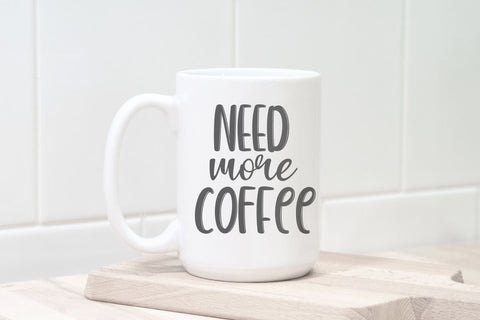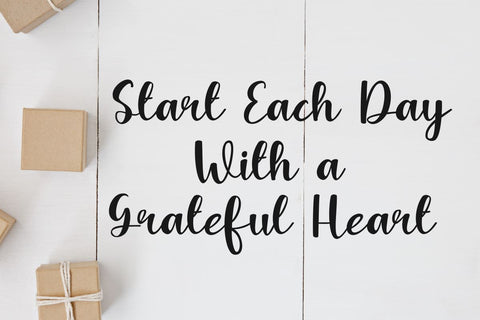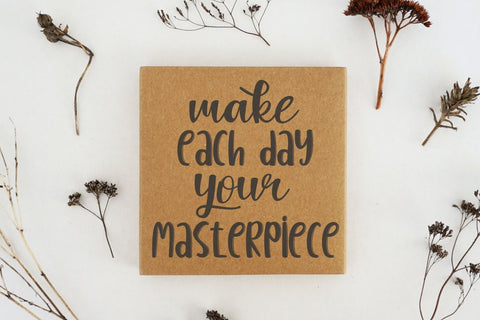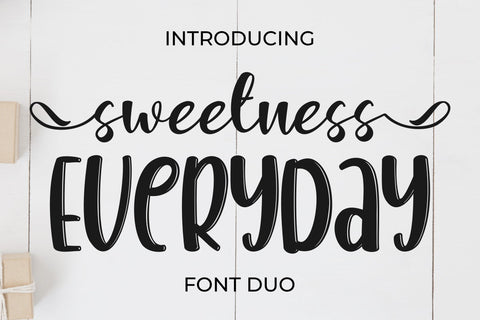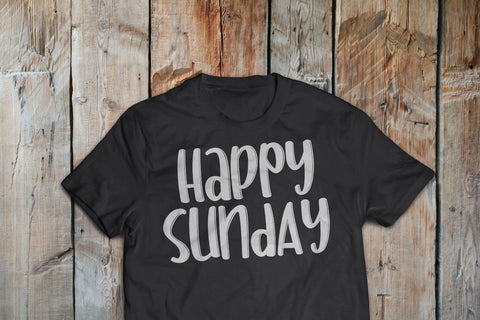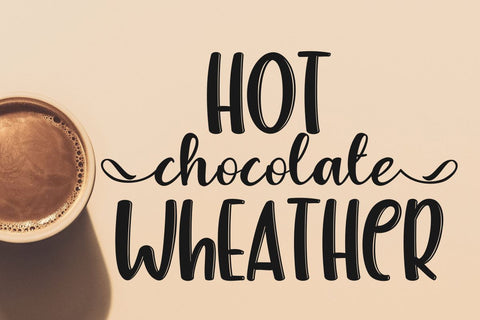
Sweetness Everyday - Font Duo
Sweetness Everyday is Duo font. It has a elegant, and modern look which can be used for logos, branding, invitations, stationary, wedding designs, social media posts, and every other design.